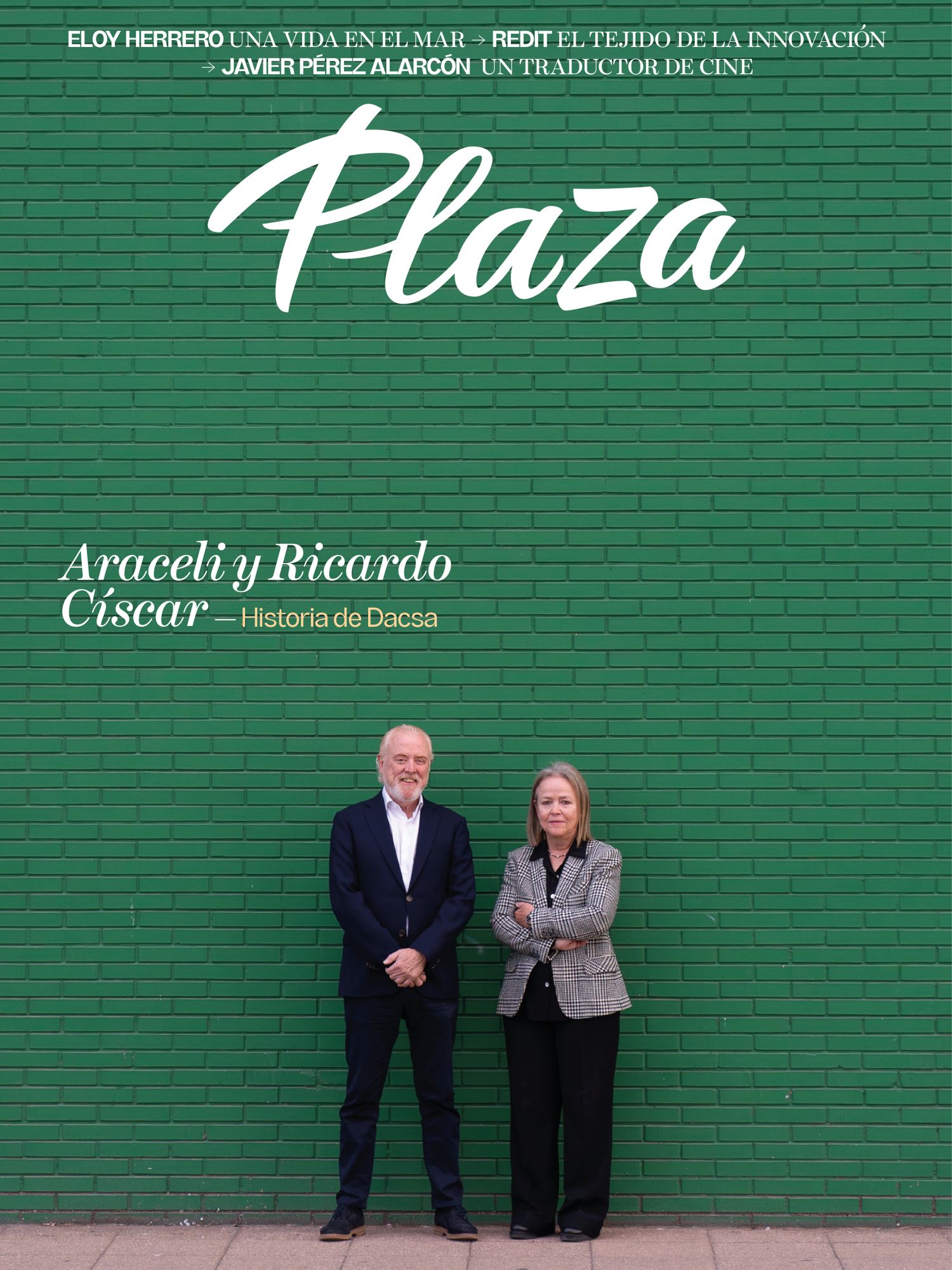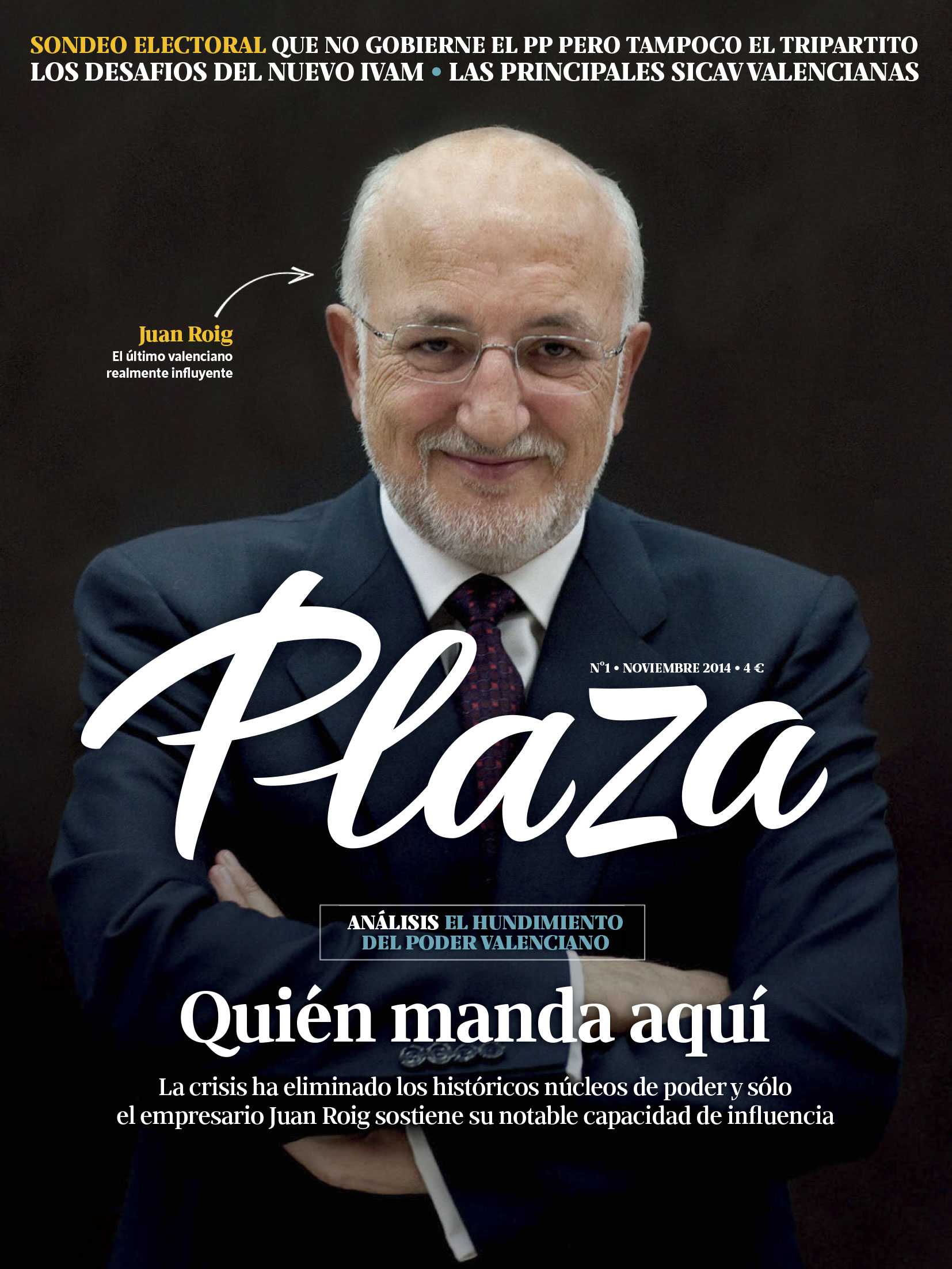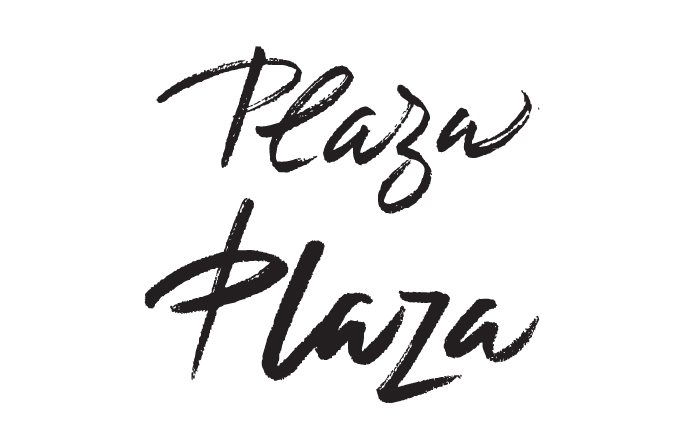
Custom wordmark and masthead for Plaza magazine
Revista Plaza is a monthly magazine edited by Ediciones Plaza. The art director, Herminio Javier Fernández asked Laura to design the masthead. The briefing was very simple: design a masthead based on personal writing, not as formal as calligraphy or brush lettering, but close to vernacular signs.